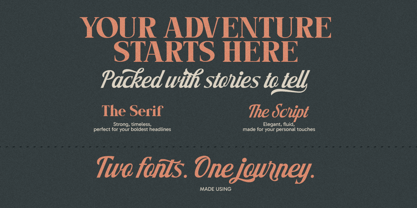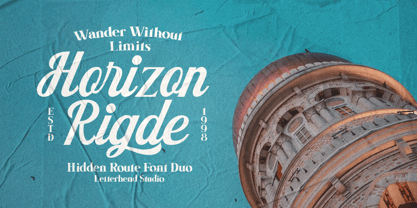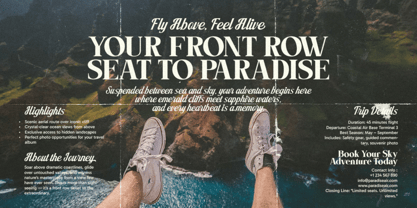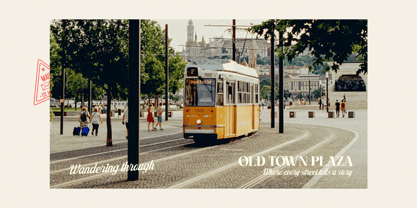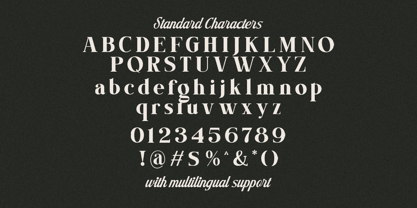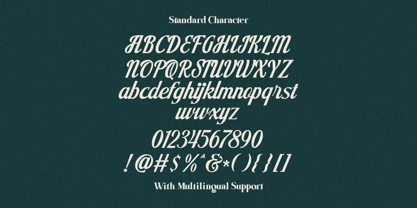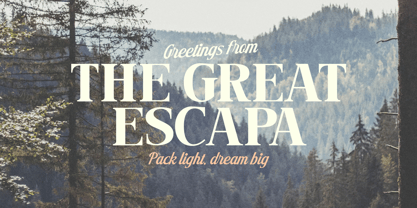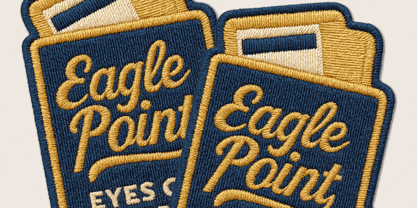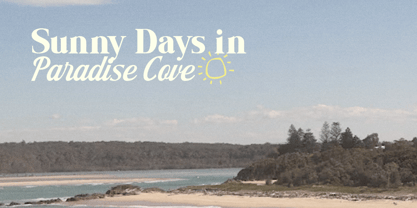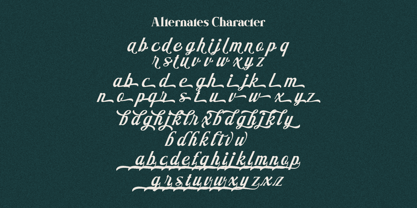
Hidden Route
by Letterhend
The Hidden Route Font Family was designed by Hendry Juanda and published by Letterhend. Hidden Route contains 2 styles and family package options. More about this family
Hidden Route is a travel-inspired font duo that captures the spirit of adventure with a mix of bold serif strength and flowing script elegance. It’s the kind of typeface that feels at home on misty mountain postcards, rustic travel journals, or striking magazine covers—dramatic yet approachable, adventurous yet refined. Features : Script & Organic Serif Uppercase & lowercase Numbers and punctuation Alternate/Ligature Multilingual Support PUA encoded